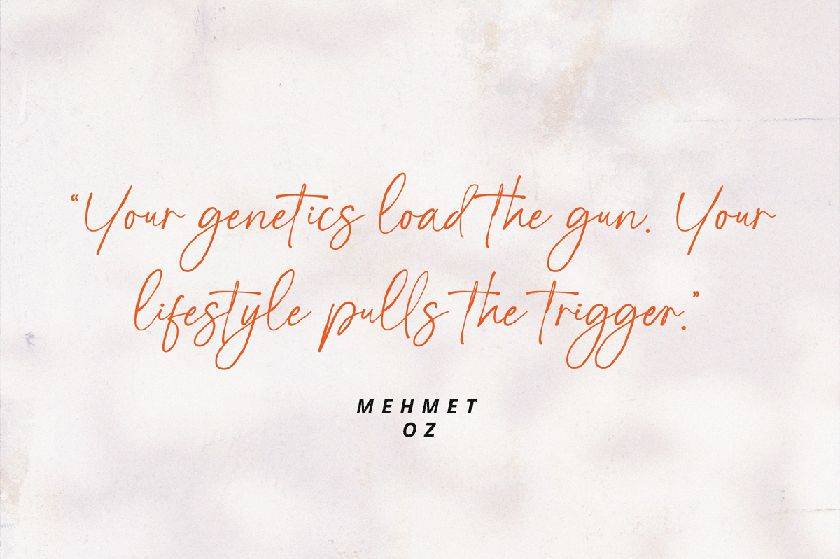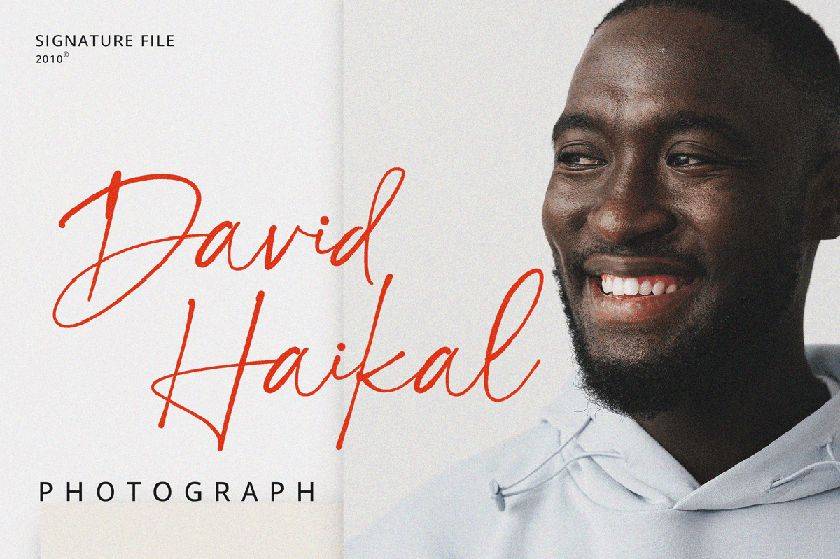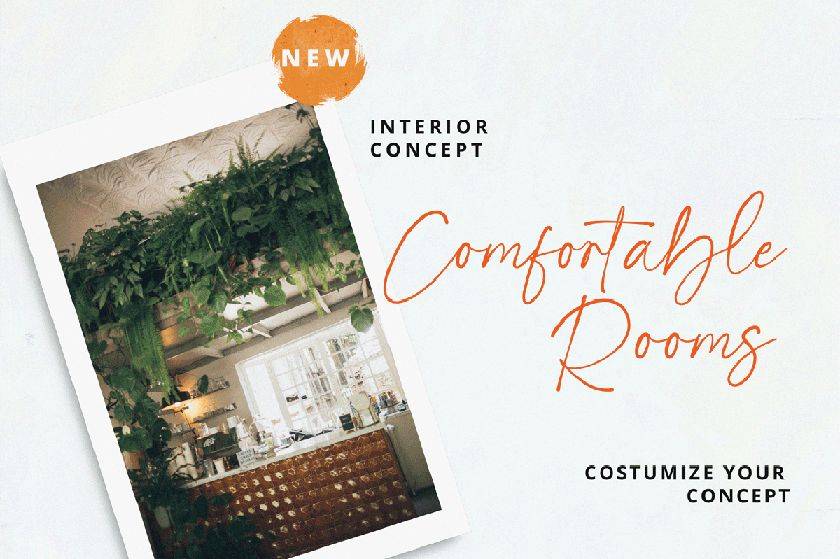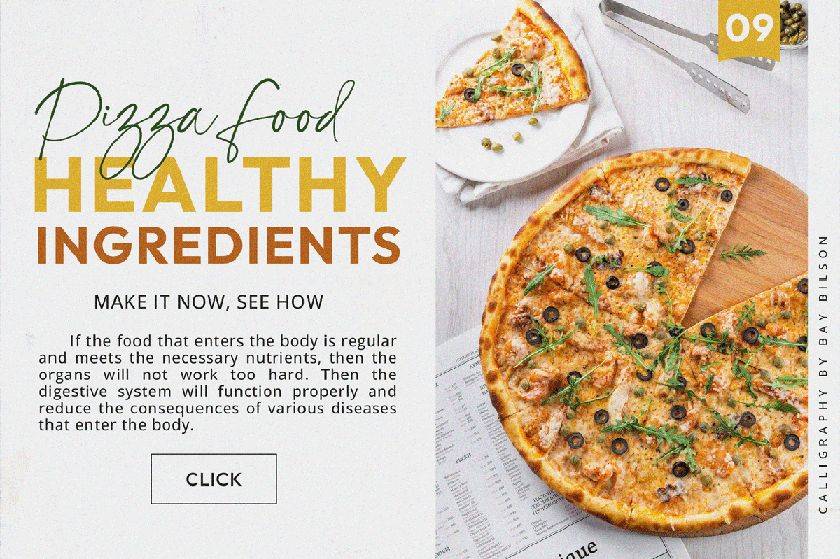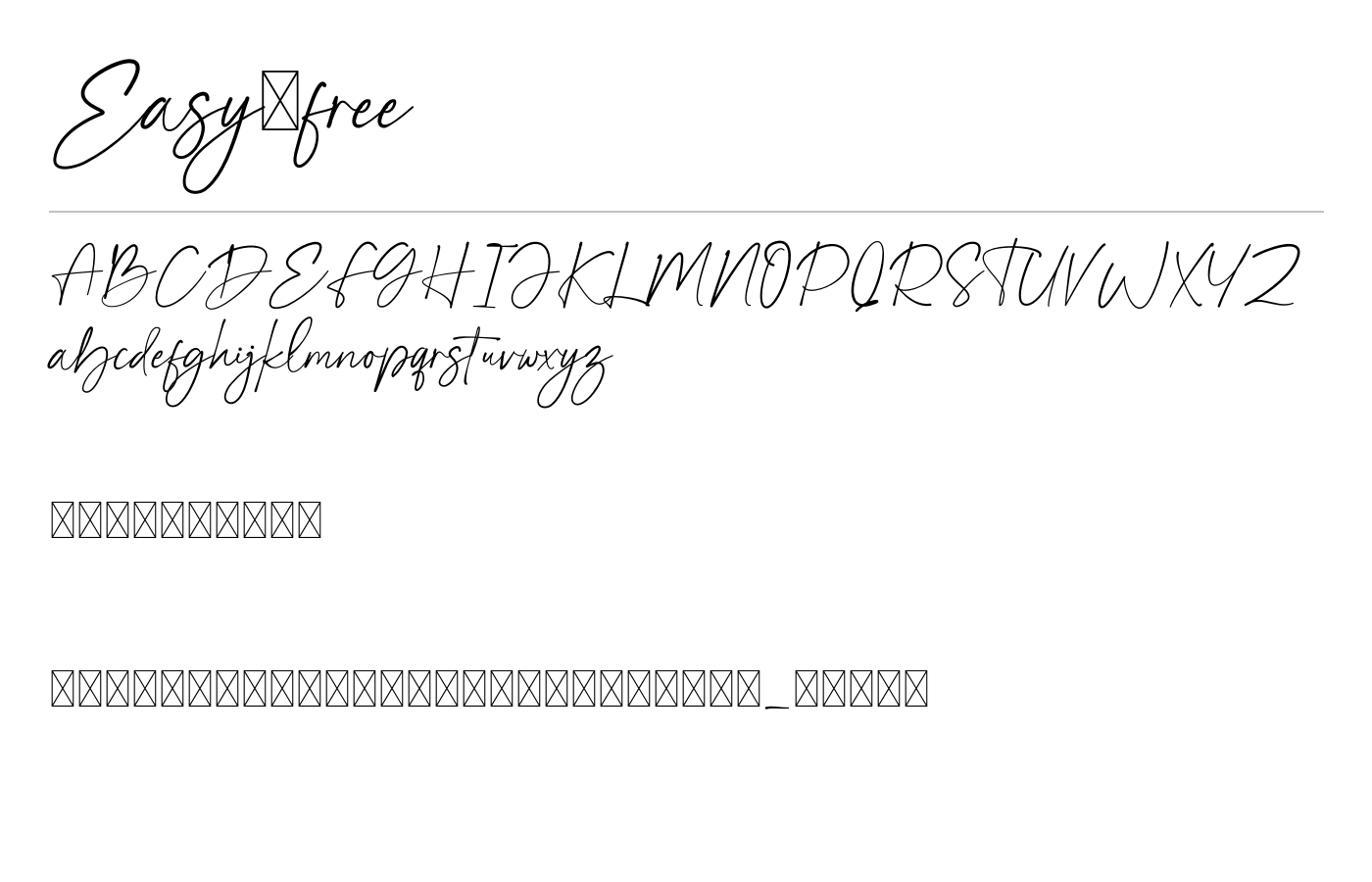
Easy Signature Font is a delicate, handwritten script with a light weight and elegant flowing strokes that mimic natural cursive handwriting. Its slim, slightly slanted letterforms convey a personal and sophisticated feel, making it perfect for branding, invitations, and creative projects that seek a stylish yet approachable touch. This font works well in contexts where a refined, signature-like aesthetic is desired to communicate elegance and sincerity.
Easy Signature Font
About Easy Signature Font
| Font family | Easy Signature Font |
| Designer | Wibisono |